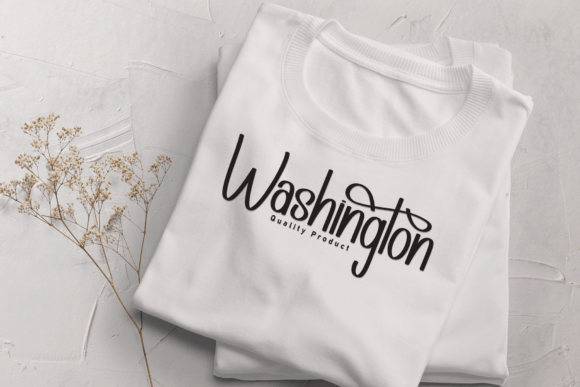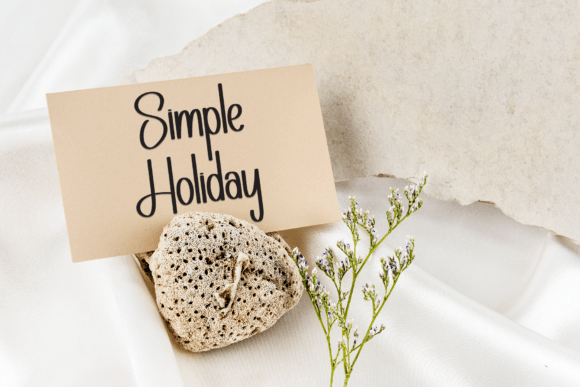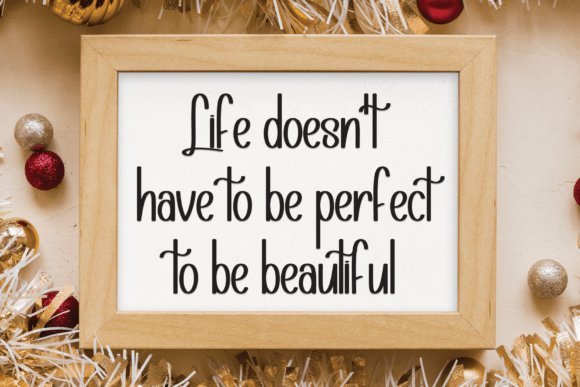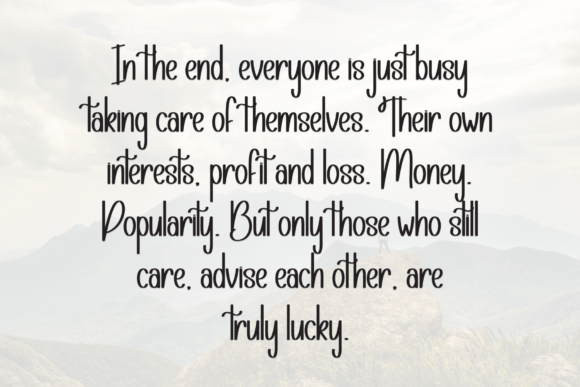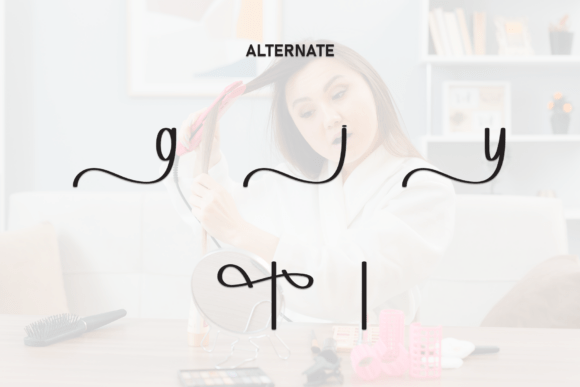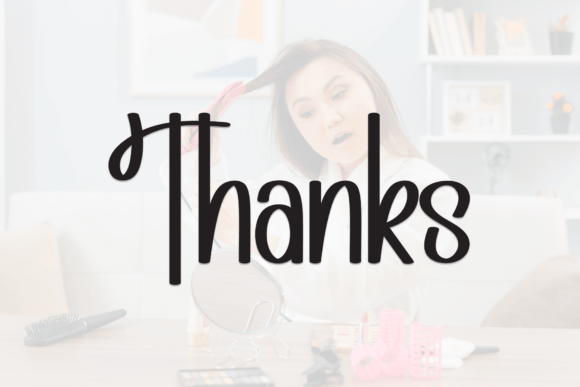
Discover the Secret to Effortless Charm in Typography
Do you remember that moment when you stumbled upon the perfect font for your creative project? The one that made your design come alive with a sense of personality and authenticity? For many designers, that moment is what makes all the hard work worth it. For me, it was when I discovered the Beauty Sometimes Font.
This lovingly handwritten font is more than just a pretty face – it’s a tool that brings warmth and elegance to every word. Perfect for romantic wedding invitations, sentimental greeting cards, or any creative project seeking a touch of authenticity, the Beauty Sometimes Font weaves gentle elegance with playful spirit. Whether you’re a seasoned designer or just starting out, this font is a valuable addition to your toolkit, offering a unique and charming way to express yourself.
Key Features of “Beauty Sometimes Font”
- Font Family: Beauty Sometimes
- Unique Characteristics: Elegant, modern design with a touch of sophistication, perfect for high-end fashion and luxury brands
Beauty Sometimes Font Review
✨ The Beauty Sometimes Font is a beautiful and elegant script font that can add a touch of sophistication to any design project. The font features flowing connections between letters and subtle flourishes that give it a unique, hand-drawn feel. It’s perfect for creating eye-catching headings, quotes, or even entire texts that require a touch of romance and whimsy.
✨ One of the standout features of this font is its versatility. It can be used in a wide range of projects, from wedding invitations to fashion magazines, and still look stunning. The font also comes in various weights and styles, making it easy to find the perfect fit for your design needs.
⚠️ While the Beauty Sometimes Font is a beautiful addition to any design project, it may not be the best choice for projects that require a more modern or minimalist aesthetic. The font’s ornate details and flourishes may clash with clean lines and simple typography, creating an inconsistent look.
⚠️ Another limitation of this font is its potential for legibility issues. In some cases, the flowing connections between letters may make it difficult to read, especially at smaller font sizes. This can be a problem if you’re planning to use the font for body text or small print.
Overall, I think the Beauty Sometimes Font is a beautiful and versatile addition to any designer’s toolkit. While it may have some limitations, its unique aesthetic and wide range of applications make it a great choice for designers who want to add a touch of elegance and sophistication to their projects.
- Perfect for: Wedding invitations, fashion magazines, romantic quotes, and more
- Good for: Creating eye-catching headings and titles
- Not ideal for: Modern or minimalist designs, small print, or body text
The Beauty Sometimes Font is ideal for:
- Typography-based art and graphics
To get the most out of the Beauty Sometimes Font, try:
- Combining it with other elegant fonts for a
Carolyna Pro Font is a modern script font that’s perfect for designers who want to create a sense of drama and flair in their designs. It’s ideal for use in fashion branding, advertising, and editorial projects that require a touch of glamour and sophistication. Compared to Beauty Sometimes Font, Carolyna Pro Font has a more edgy and modern feel, making it suitable for designers who want to create bold and eye-catching designs.
Q: What is the recommended font size for using the Beauty Sometimes Font?
The recommended font size for the Beauty Sometimes Font is between 12pt and 24pt, depending on the context of your design. For body text, 14pt or 16pt is a good starting point, while headings and titles can be larger (18pt or 20pt). Experiment with different font sizes to find the perfect balance for your design.